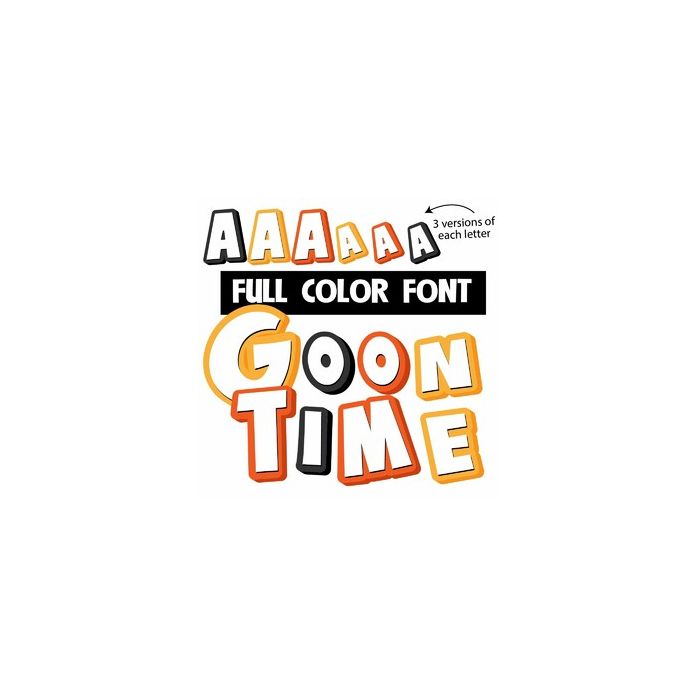
This full-color font features comic book lettering in yellow, orange, and black. Check out Toon Time for primary colors too. There are three versions of each letter you can access through your system's character map. This font works best for titles, displays, posters and more. Please note color fonts will show as black in non compatible programs. This font type is compatible with Silhouette Studio.